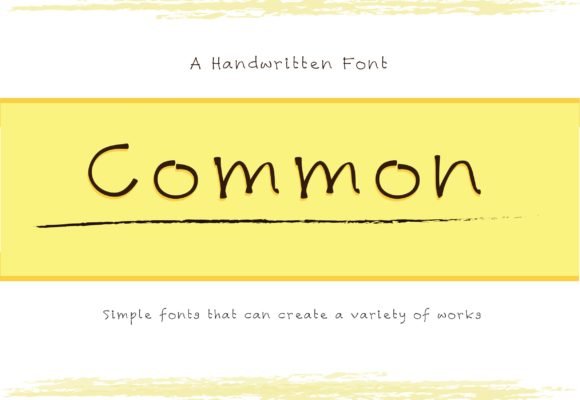
Where Creativity Meets Personality: Introducing the Common Font
There’s nothing quite like the rush of inspiration that comes when a new idea bursts into your mind. You’re sitting at your desk, surrounded by scattered notes and half-finished projects, when suddenly it hits you – the perfect concept, the perfect design, the perfect way to bring your vision to life. And that’s exactly when you know you need the right tool to make it happen.
Enter the Common Font, a spectacular handwritten font designed to add a personal touch to your creations. With its unique, hand-crafted feel, the Common Font is perfect for making your ideas stand out and creating designs that truly reflect your personality. Whether you’re a seasoned designer or just starting out, this versatile font is a valuable asset to have in your toolkit.
- Unique Character Set: Common Font includes a unique set of characters, including extended Latin, Cyrillic, and Greek alphabets, making it suitable for multilingual applications.
- Font Style Options: The font offers various style options, including Regular, Bold, Italic, and Bold Italic, allowing users to customize the font to suit their needs.
Common Font Review
At first glance, I was surprised by how Common Font managed to blend into the background while still conveying a sense of approachability. ✨ It’s not trying to be too flashy or attention-seeking, which is perfect for most everyday use cases. I also appreciate how it has a clean and neutral aesthetic that works well with a variety of color schemes.
However, I did notice that Common Font can sometimes feel a bit too plain. ✨ It’s not the most distinctive or memorable font out there, which might make it hard to stand out in a crowded digital landscape. ⚠️ Additionally, some users might find it a bit too casual or informal for certain types of content.
Overall, I think Common Font is a solid choice for everyday use, but it might not be the best fit for more creative or high-end projects.
Pros and Cons:
- ✨ Works well with a variety of color schemes
- ✨ Clean and neutral aesthetic
- ⚠️ Can feel a bit too plain
- ⚠️ Not the most distinctive or memorable font
For the best results, use the Common Font for body text in designs.
It’s also suitable for headings, titles, and captions.
Remember to pair the Common Font with a clear and legible font for headings to maintain readability.